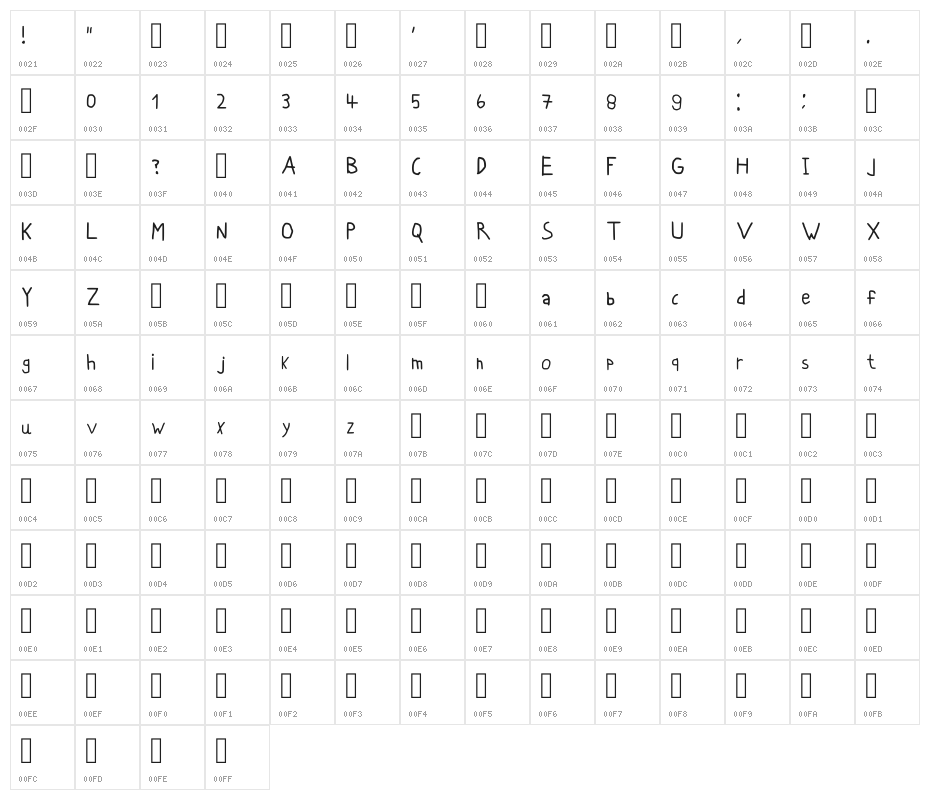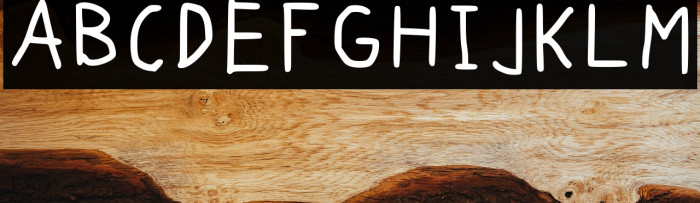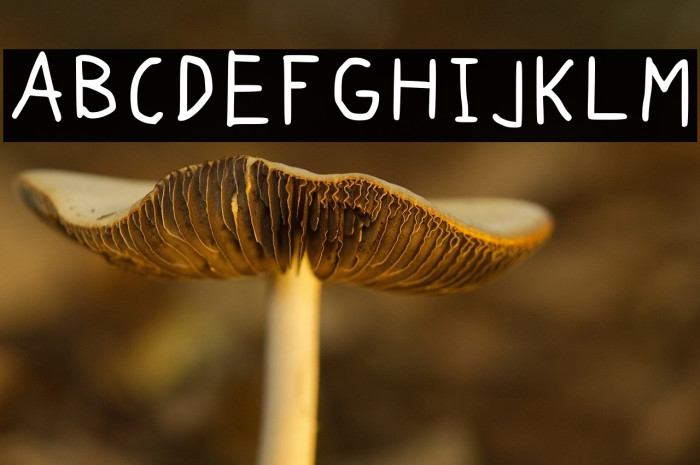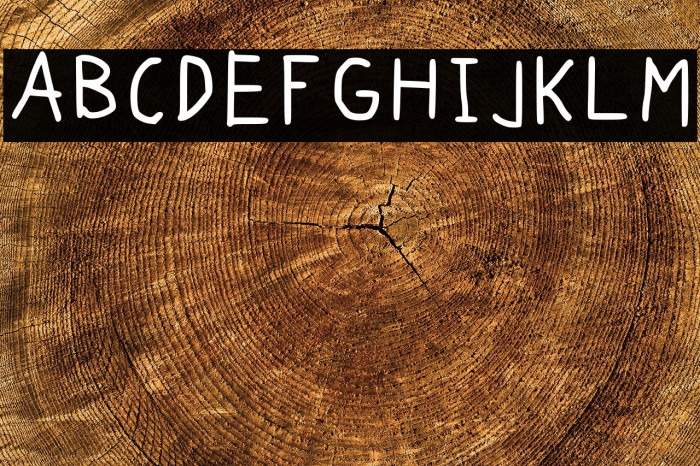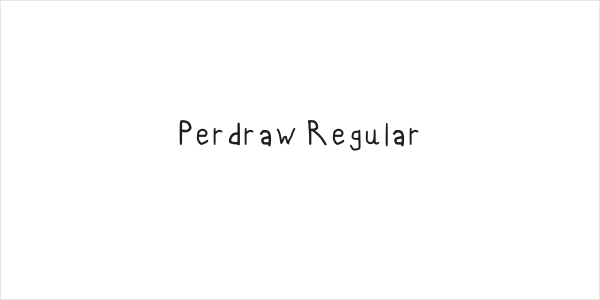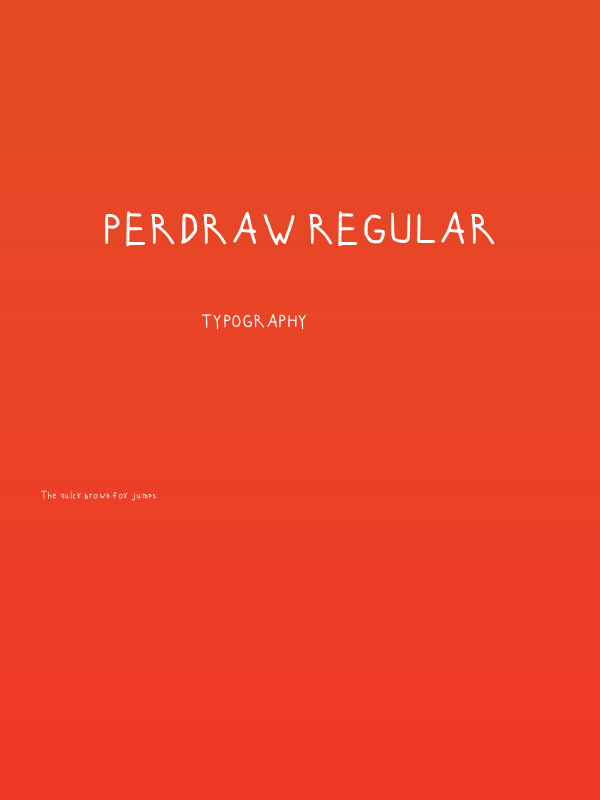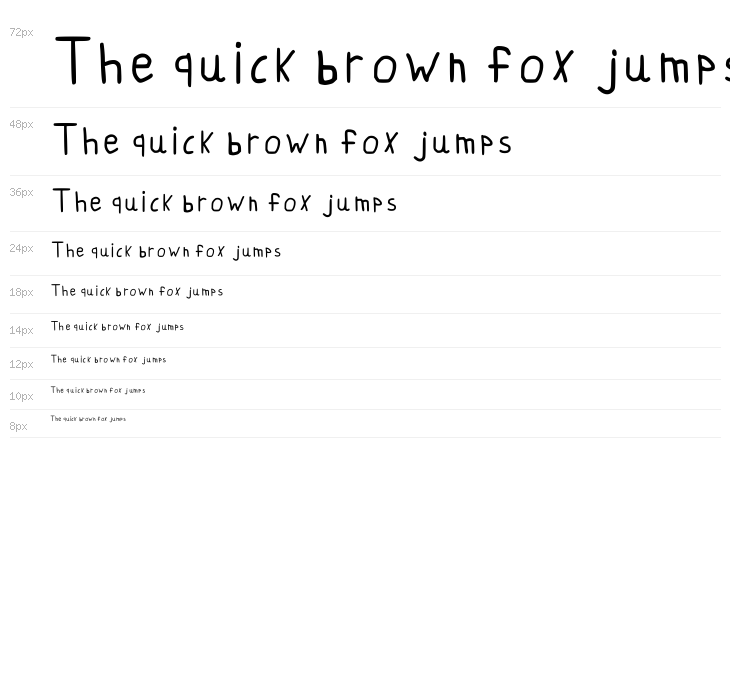
Perdraw Regular Font
Perdraw Regular Description
This font features a playful and informal handwritten style, characterized by its uneven strokes and casual appearance. The letters have a slightly irregular baseline, giving them a whimsical and approachable feel. The uppercase and lowercase letters maintain a consistent style, with rounded edges and a friendly demeanor. The numerals and special characters follow the same informal aesthetic, making this font suitable for projects that require a personal touch. Its simplicity and charm make it versatile for various creative applications.
| Overall Style | Casual, Whimsical |
| Use Case | Headlines, Informal text, Creative projects |
| Proposed Projects | Ideal for children's books, greeting cards, personal blogs, and informal branding. |